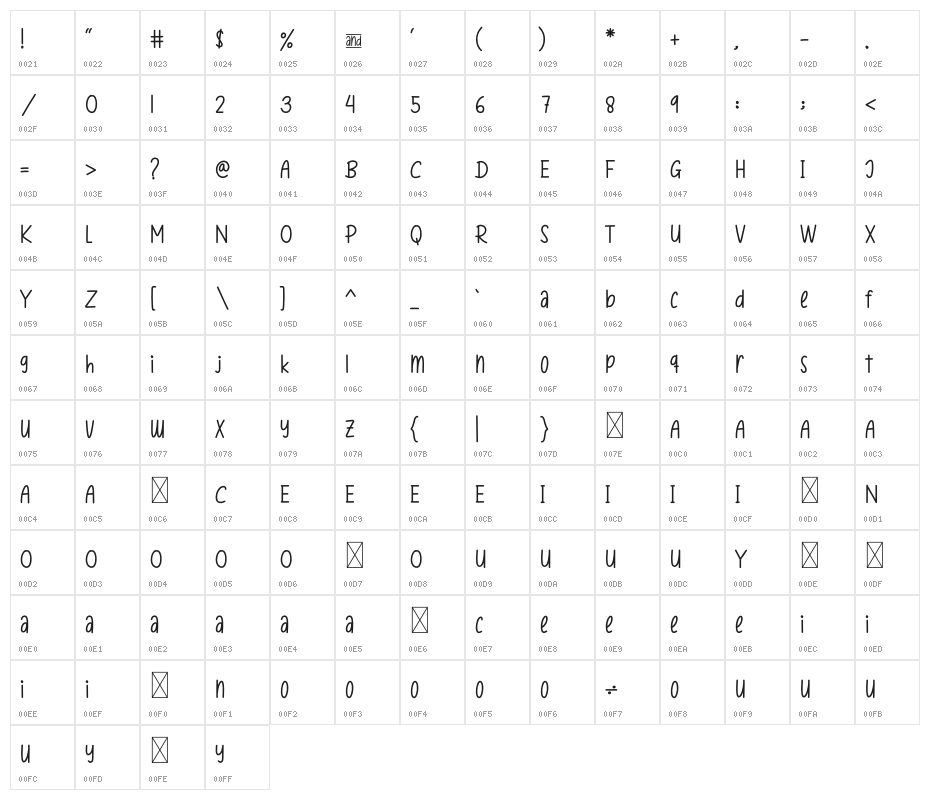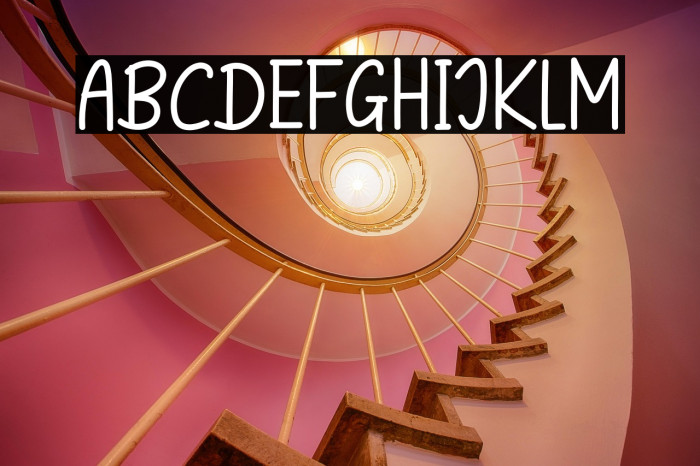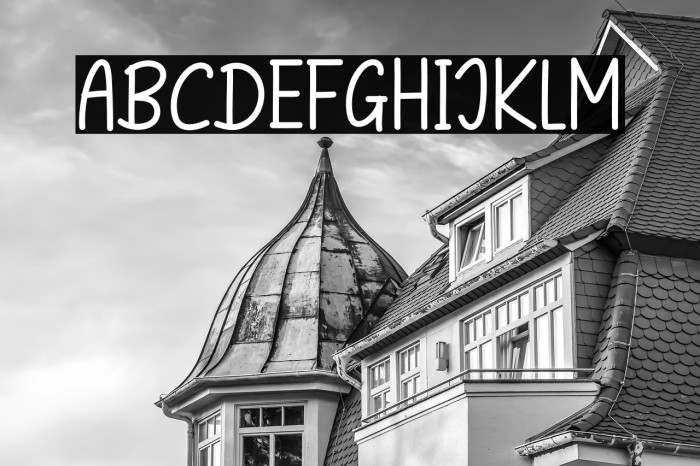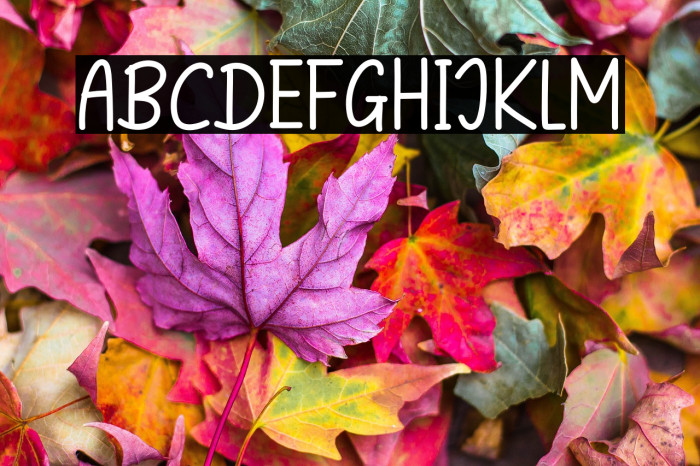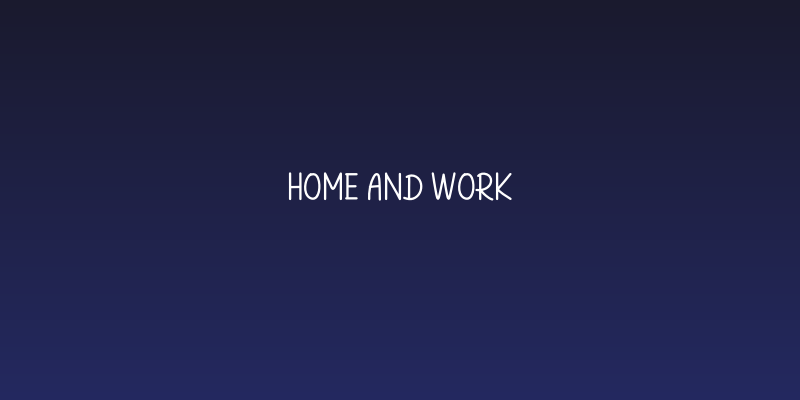
Home And Work Font
Home And Work Description
This font features a playful and casual handwritten style, characterized by its rounded and slightly irregular letterforms. The uppercase and lowercase letters maintain a consistent flow, giving a friendly and approachable appearance. The numerals and special characters are designed to complement the overall style, ensuring readability while maintaining the font's unique charm. The strokes are uniform in thickness, contributing to a clean and simple aesthetic that is easy on the eyes.
| Overall Style | Casual |
| Use Case | Headlines, Informal text, Branding |
| Proposed Projects | Ideal for greeting cards, children's books, casual branding, and social media graphics. |